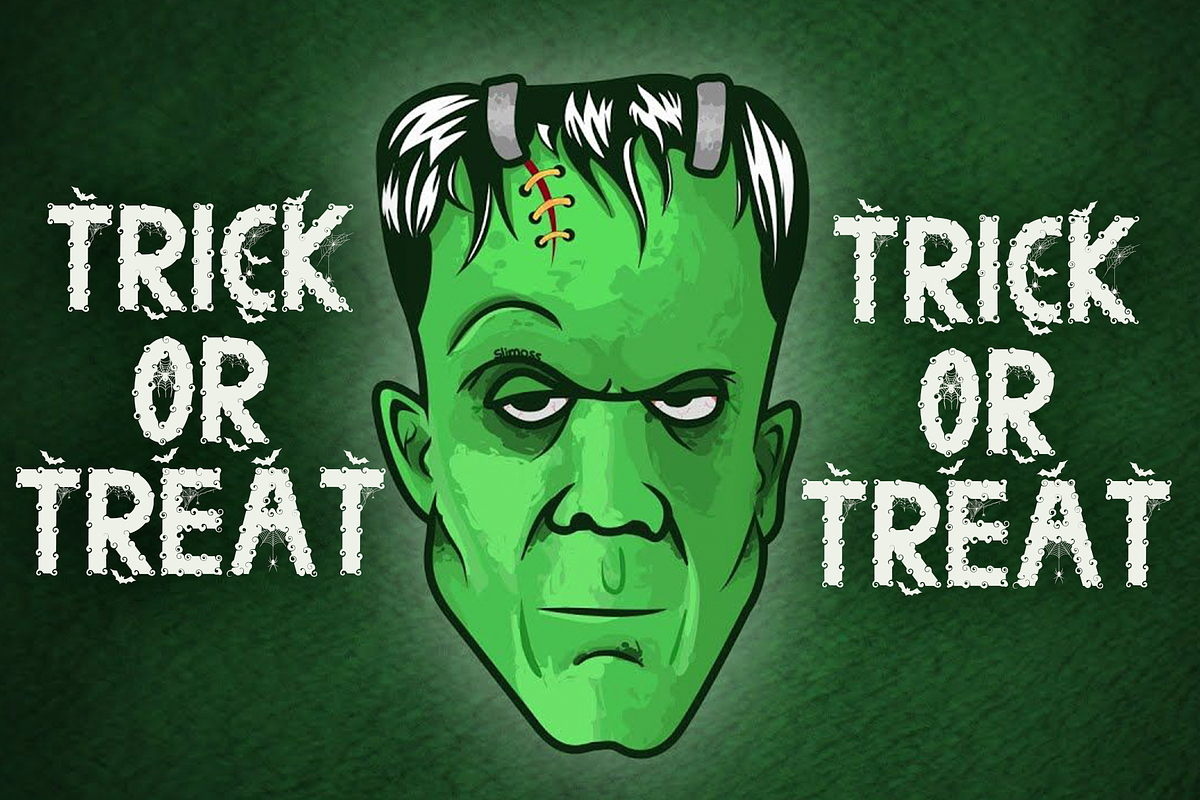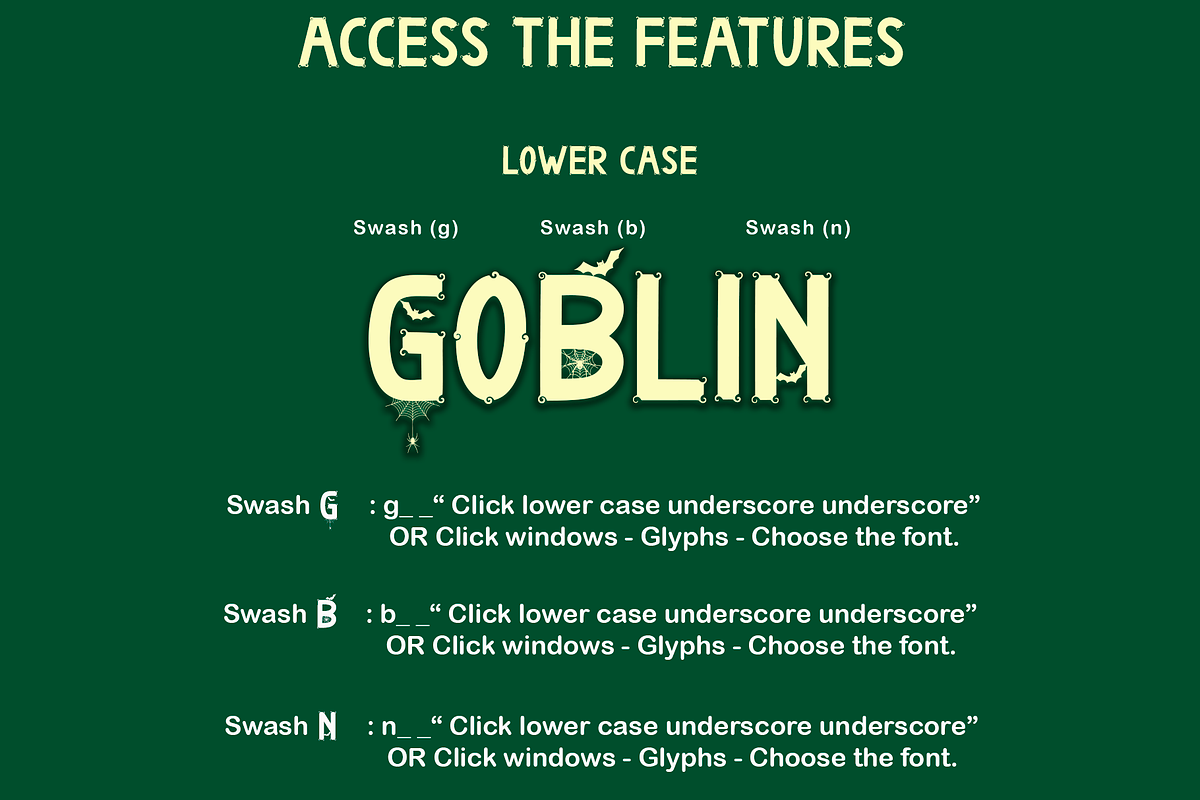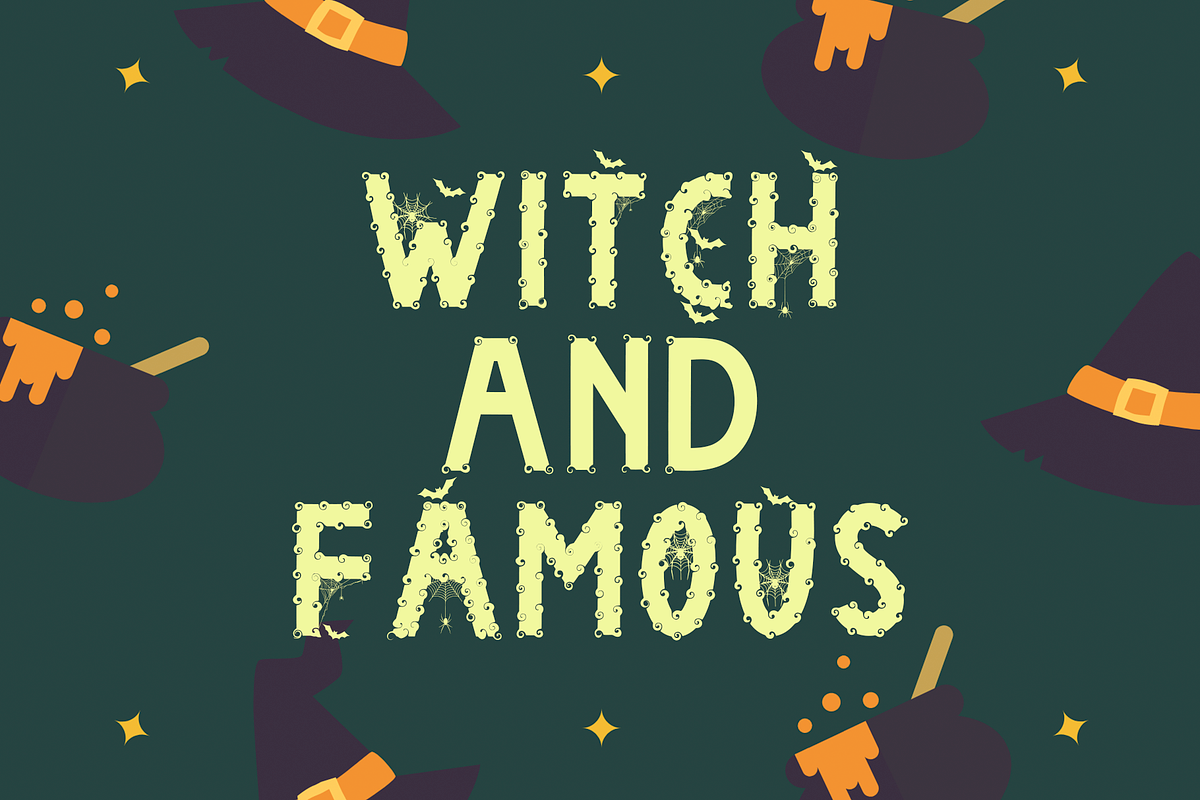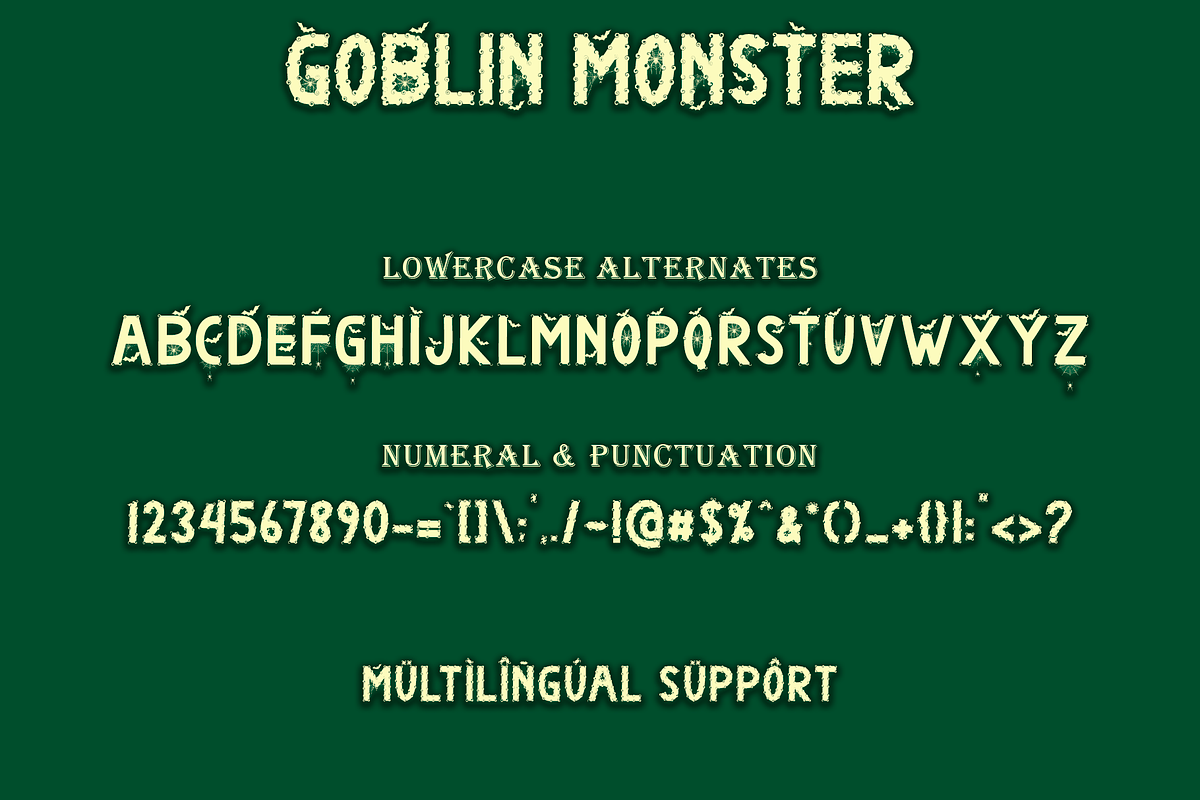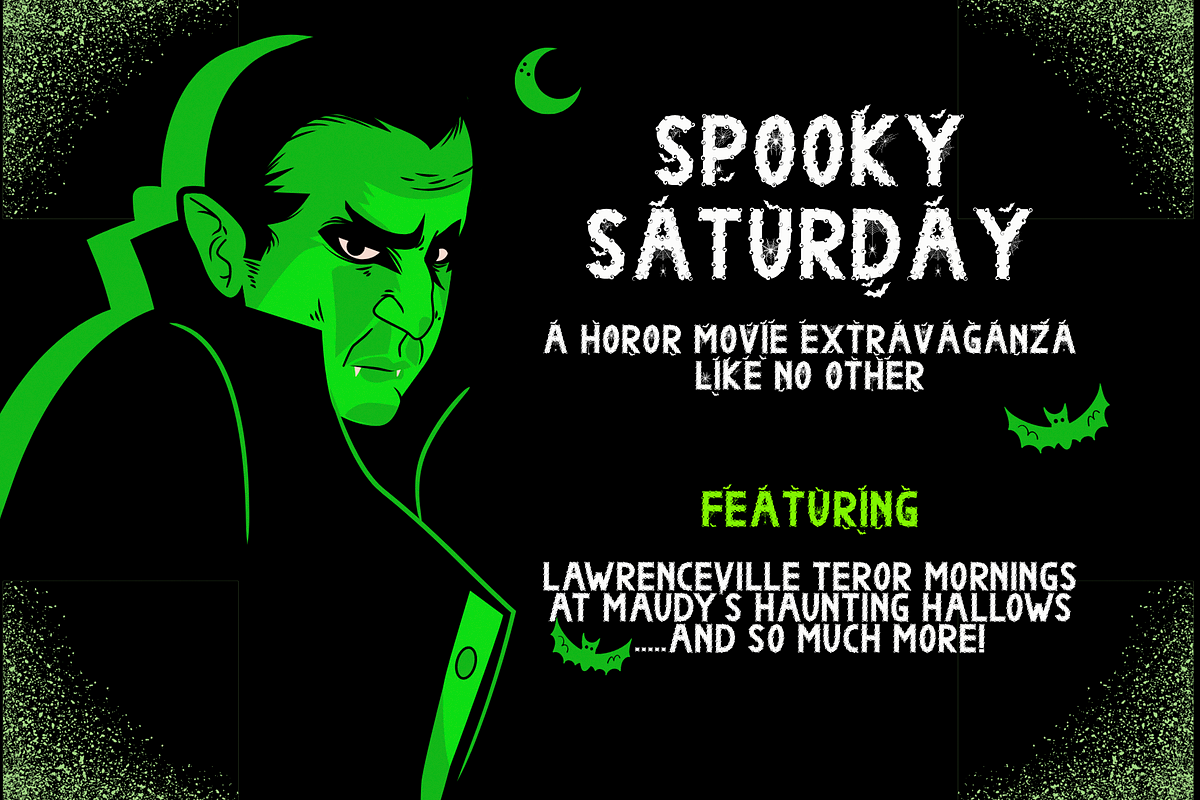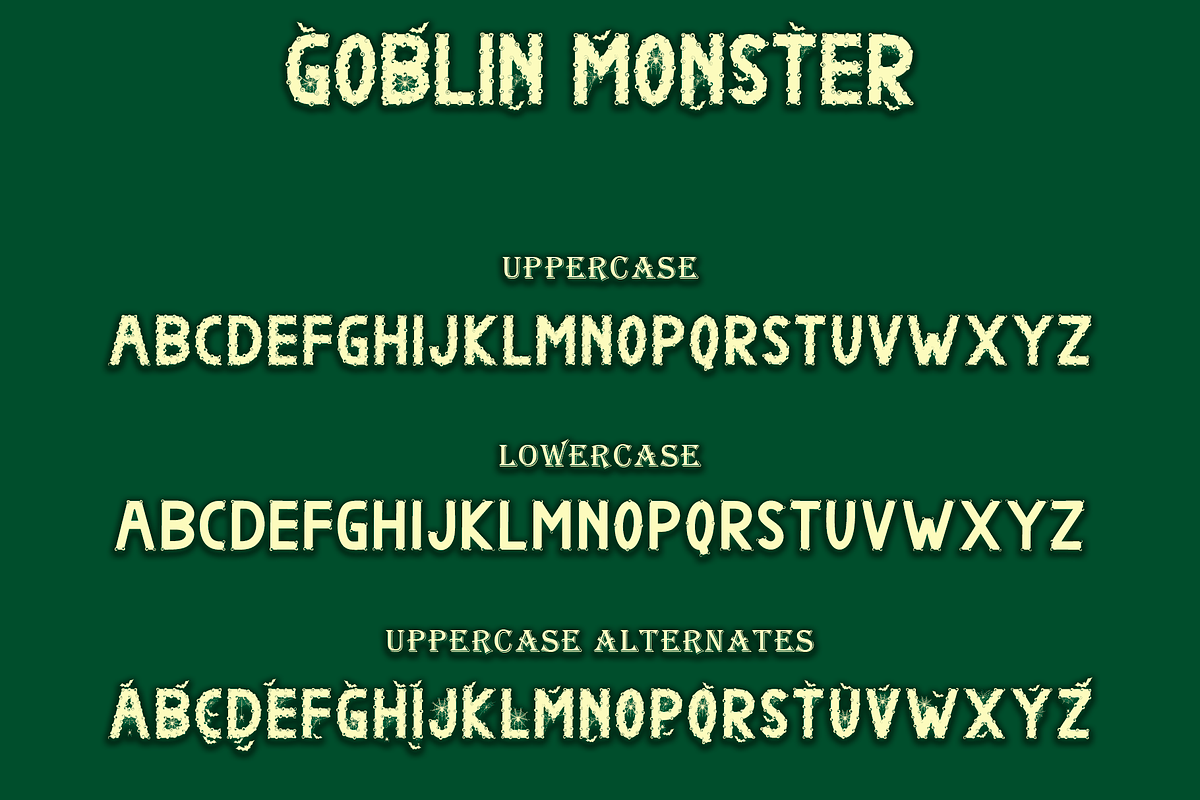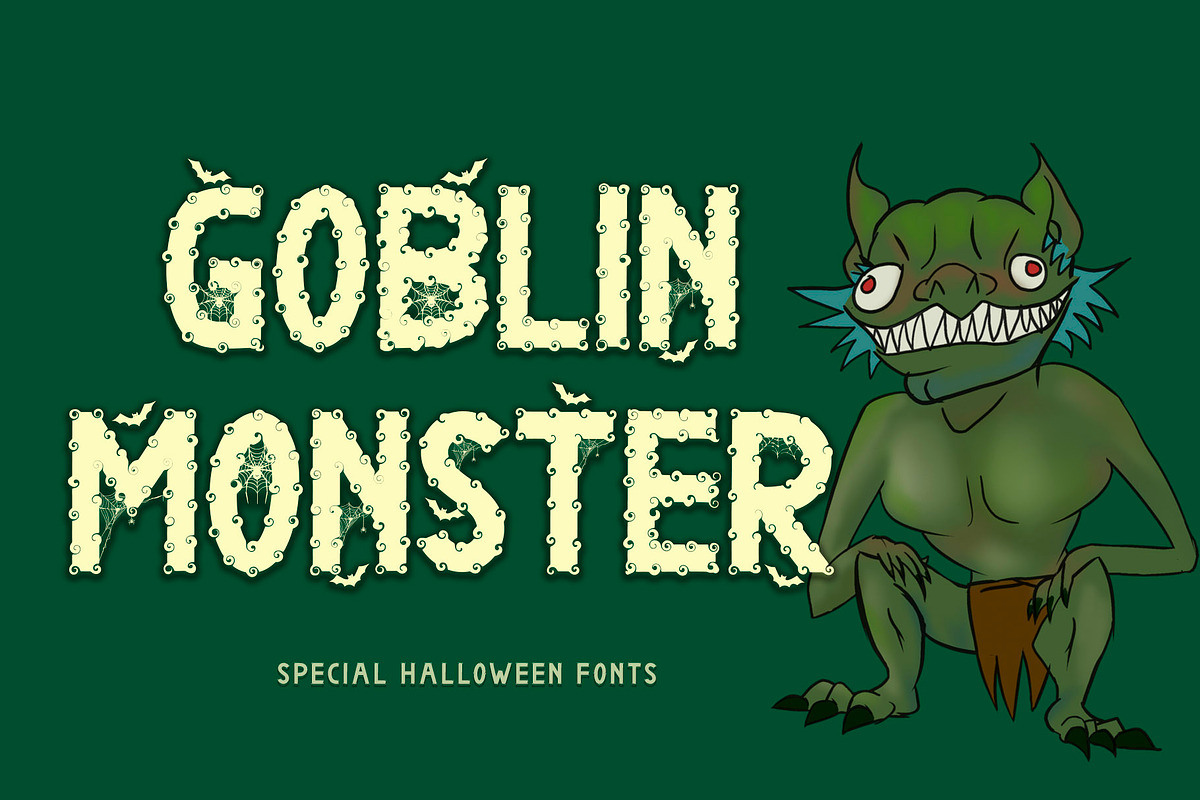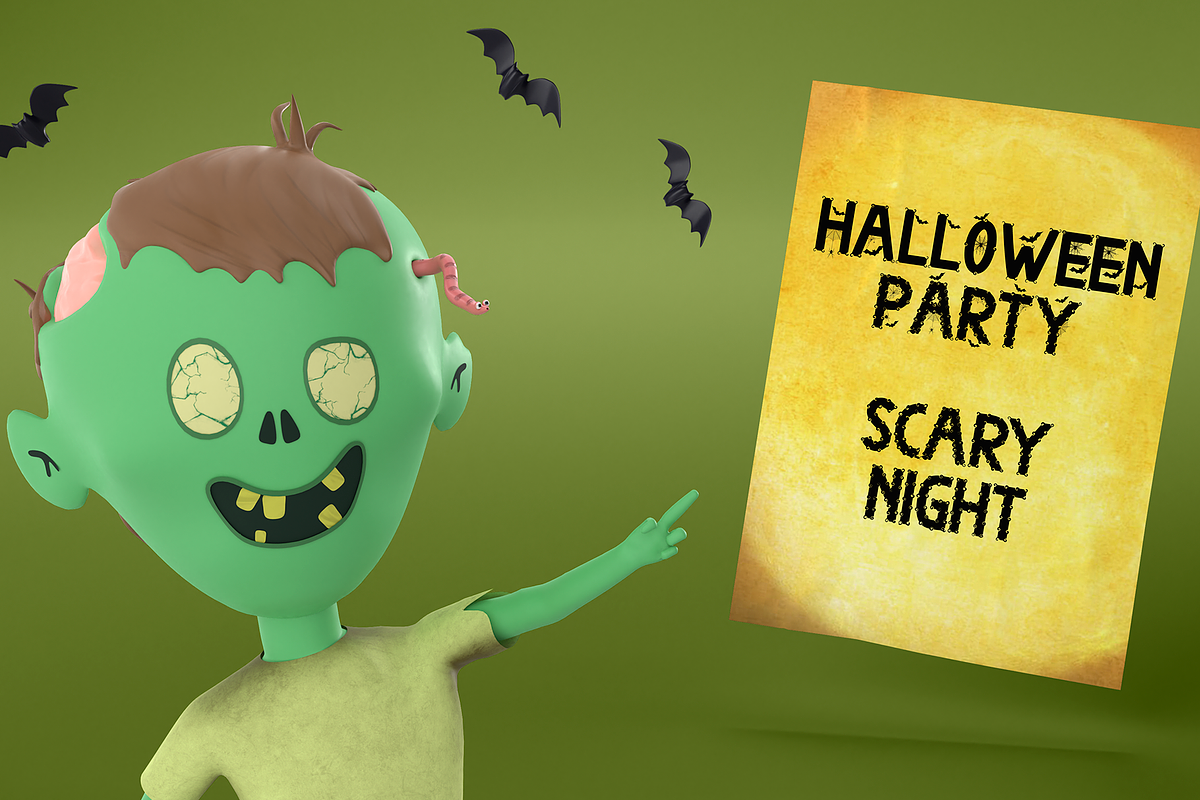
Goblin Monster
"Goblin Monster" is a font with a monster theme that is perfect for your Halloween celebration. This font is very easy to use and each letter is decorated with bats and spider webs which will add to the beauty of this font. The shape of the letters and the character of the letters is very unique and different. This font can also be used for book covers, movie or book titles, logos, posters, stickers and more.